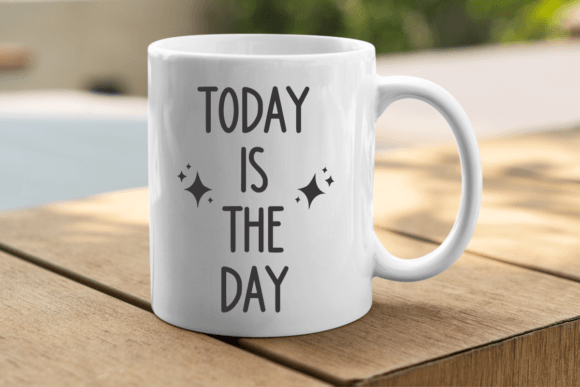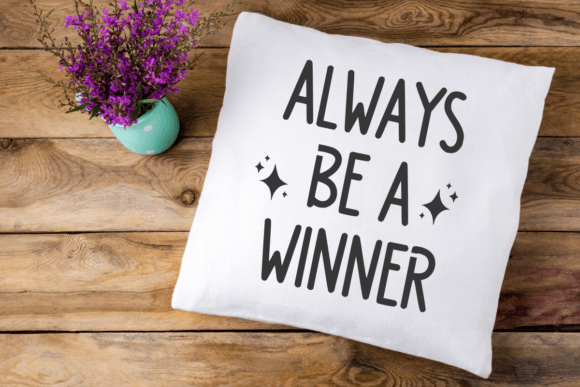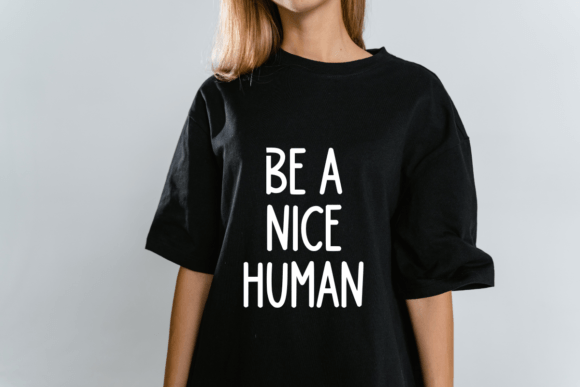
Introduction to Cozy Bliss Font
Cozy Bliss is a modern and charming handwritten font that exudes elegance and personality.
Its graceful, flowing strokes and sophisticated character make it perfect for upscale invitations, personal branding, and chic editorial designs Elevate your projects with the refined allure and warmth of this font.
Key Features of Cozy Bliss Font